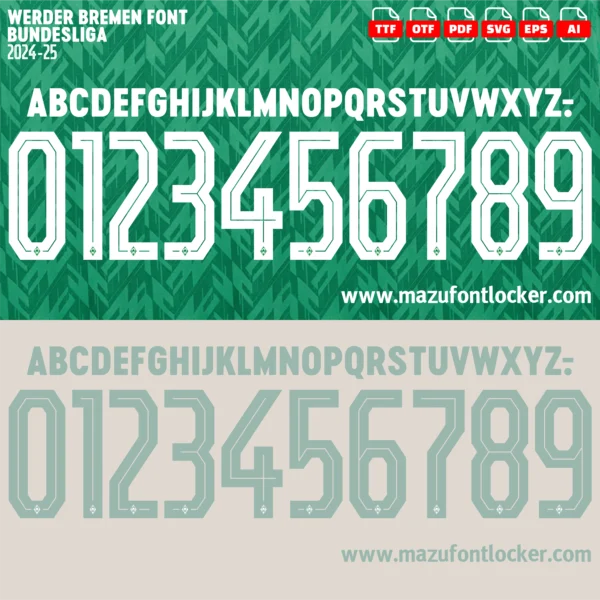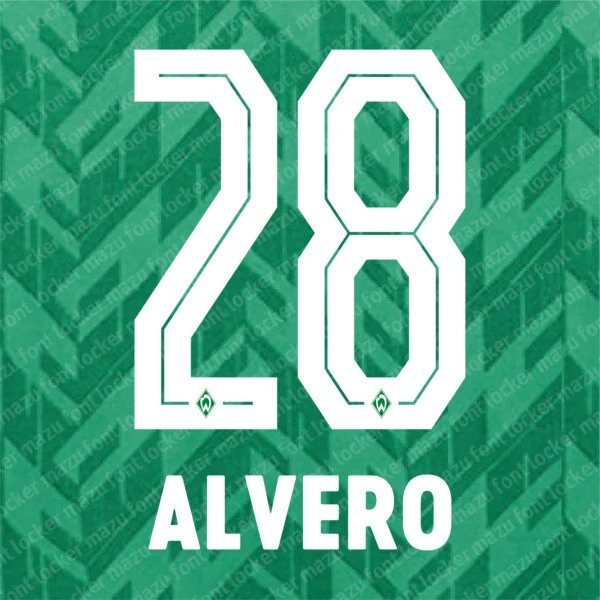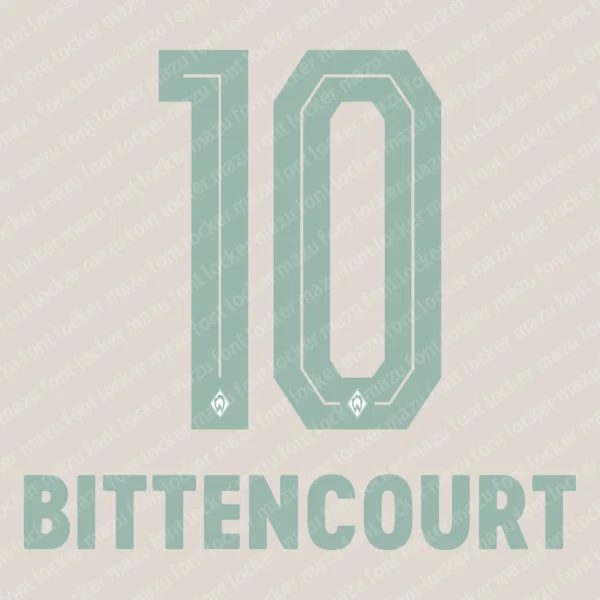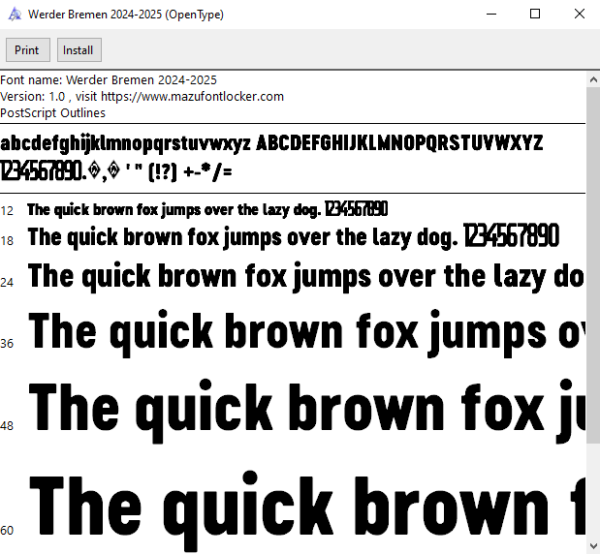
Werder Bremen 2024-2025 Font Vector – Stunning Green & White Typeface
The Werder Bremen 2024-2025 Font Vector is a premium typeface that accurately recreates the distinctive match lettering associated with Werder Bremen for the 2024-2025 football season. This high-quality vector font kit captures the bold, clean, and instantly recognizable typography that perfectly complements the club’s iconic green and white identity.
Designed for professional designers, football enthusiasts, jersey collectors, and passionate Werder supporters, the Werder Bremen 2024-2025 Font Vector delivers exceptional authenticity for creating realistic jersey mockups, football merchandise, social media graphics, match posters, squad designs, and custom fan artwork. Every character has been carefully recreated to reflect the powerful and precise visual style of one of Germany’s most distinctive and passionate football clubs.
Why Choose Werder Bremen 2024-2025 Font Vector
This font stands out thanks to its precise vector construction and authentic club-inspired styling. Every letter and numeral has been meticulously recreated to match the distinctive football lettering aesthetic associated with Werder Bremen during the 2024-2025 season and its domestic campaigns.
Whether you’re producing professional football kit templates, custom jersey concepts, or eye-catching football content, the Werder Bremen 2024-2025 Font Vector delivers a genuine match-ready appearance inspired by the identity of Die Werderaner.
The lettering featured in the Werder Bremen 2024-2025 Font Vector combines clean geometric lines with bold modern proportions. The result is a premium and highly readable typeface that reflects Werder Bremen’s proud football heritage, iconic green and white colors, Bremen identity, and passionate global fanbase.
- Complete uppercase A–Z alphabet and numbers 0–9 in authentic Werder Bremen 2024-2025 inspired style
- Special Werder Bremen badge glyph – Press the “:” (Colon) key to insert the club crest